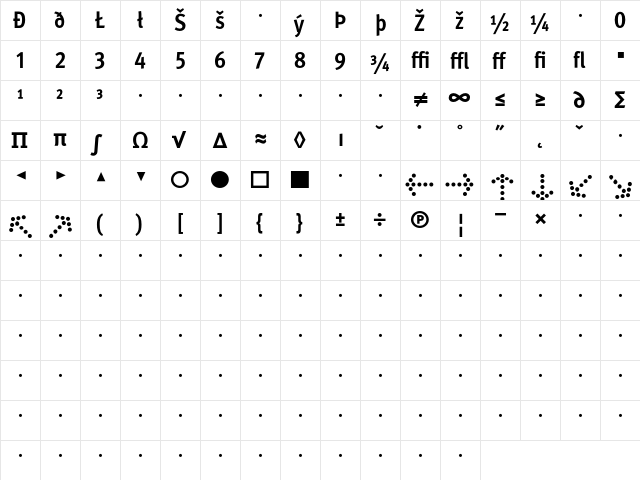
MetaCondBold Expert
Design Context for MetaCondBold Typeface
MetaCondBold is a composed and adaptable typeface that performs quietly and consistently across a wide range of design contexts. The heavy weight commands attention and anchors typographic hierarchies. The condensed width makes it efficient for tight spaces without sacrificing legibility.